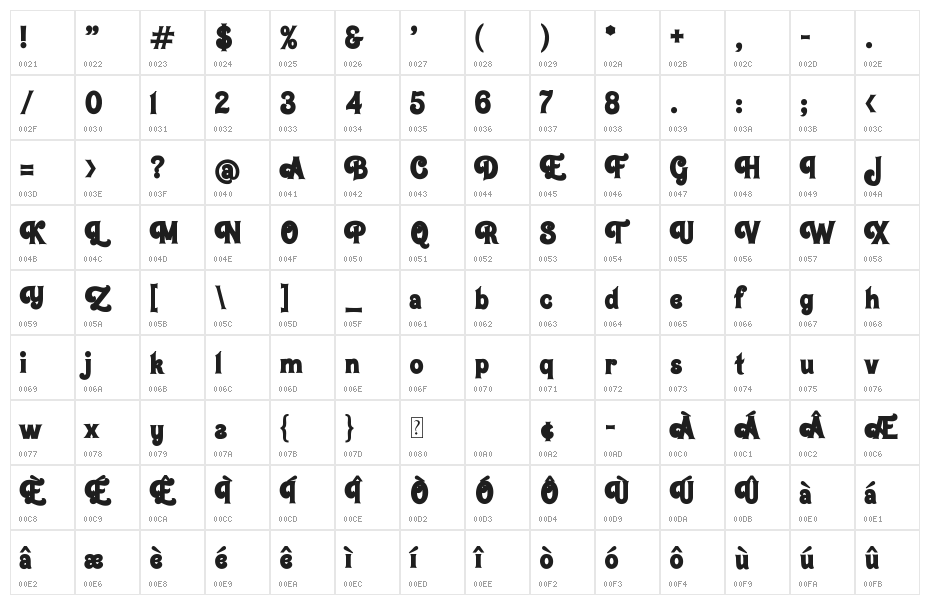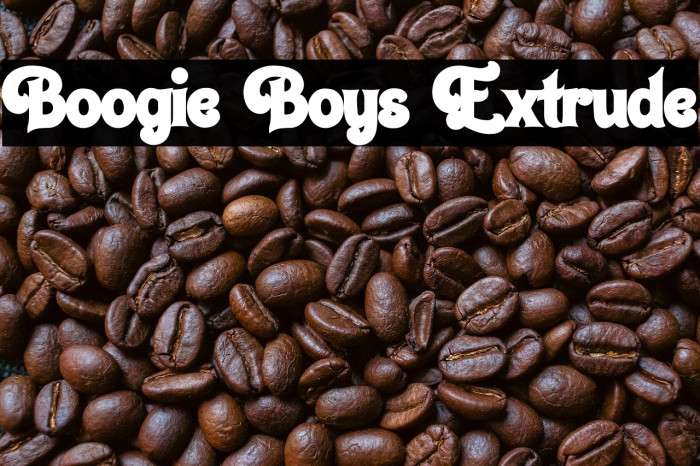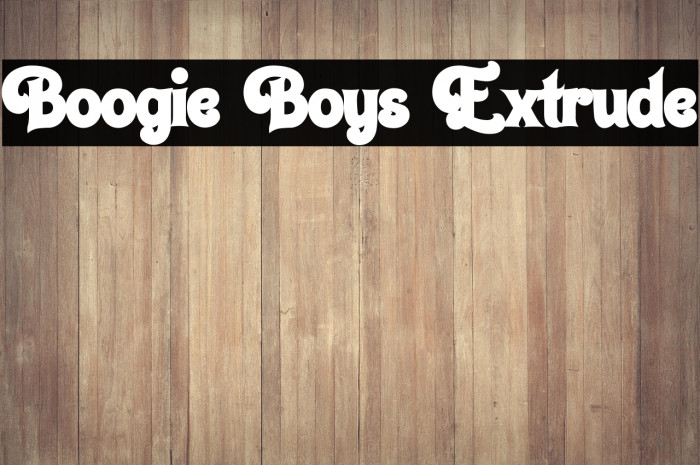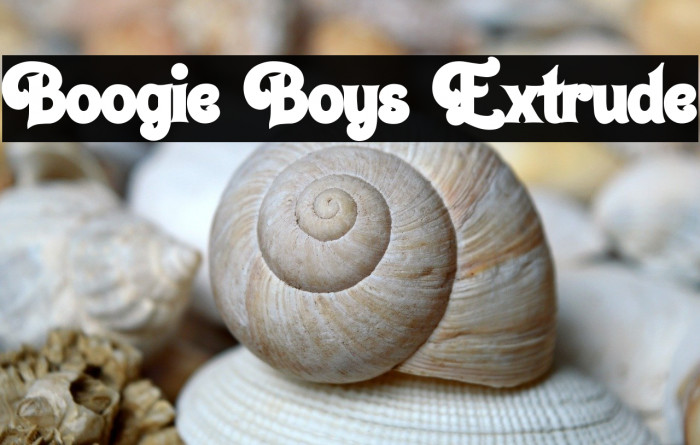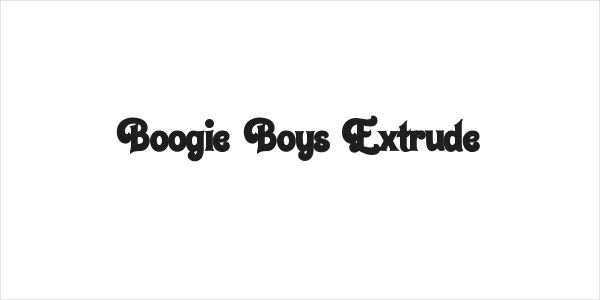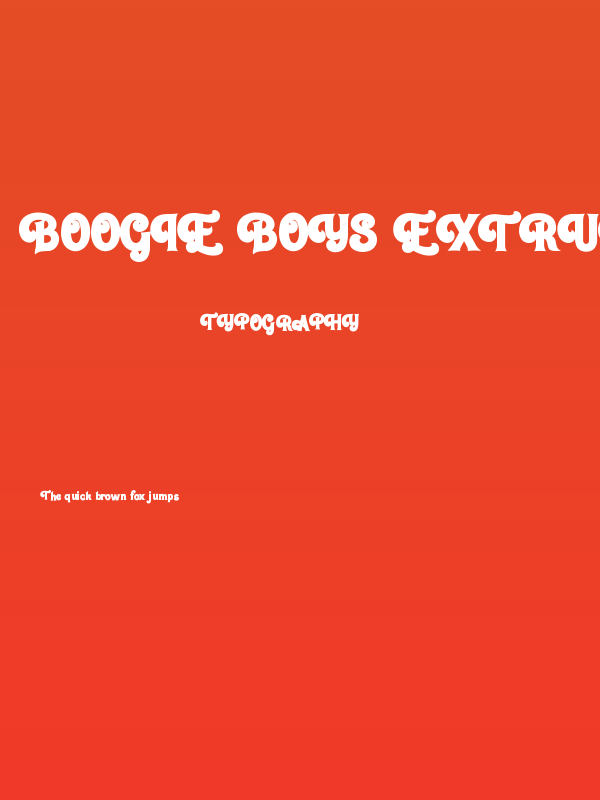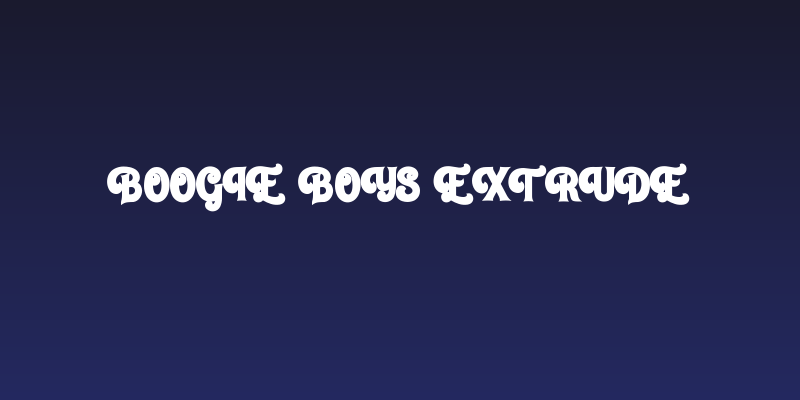
Boogie Boys Extrude Font
Boogie Boys Extrude Description
This font features a bold and playful design with a strong presence. The characters are thick and rounded, giving a sense of fun and energy. The exaggerated curves and unique shapes make it stand out, while the consistent stroke width adds to its boldness. The font has a retro feel, reminiscent of vintage signage or playful cartoon lettering. It includes a full set of uppercase and lowercase letters, numbers, and a variety of special characters, making it versatile for different design needs.
| Overall Style | Retro, Playful |
| Proposed Projects | Ideal for children's books, playful branding, retro-themed posters, and eye-catching headlines. |